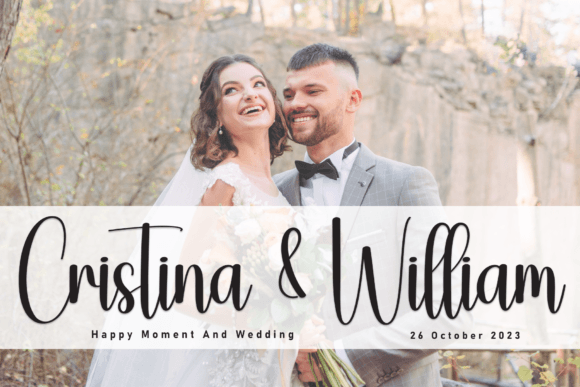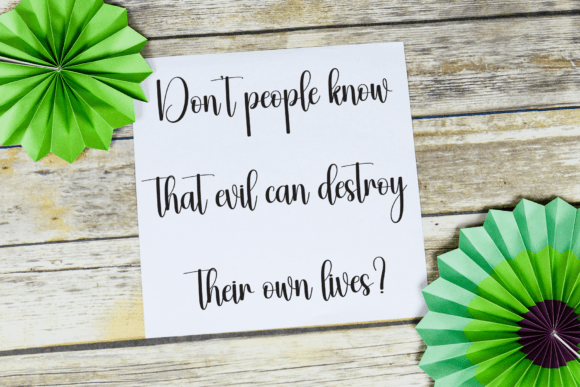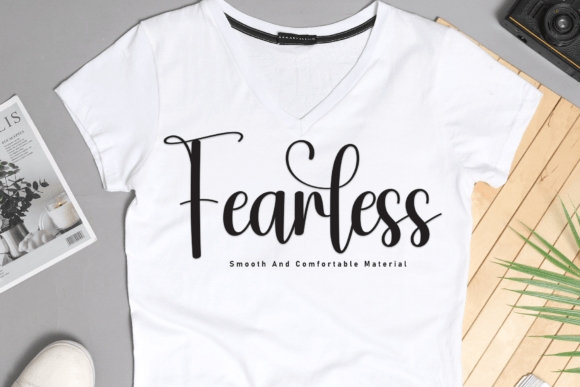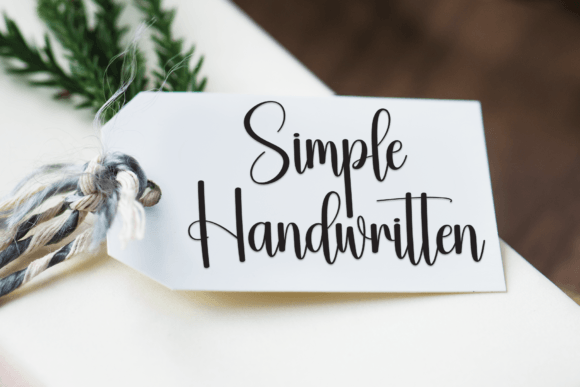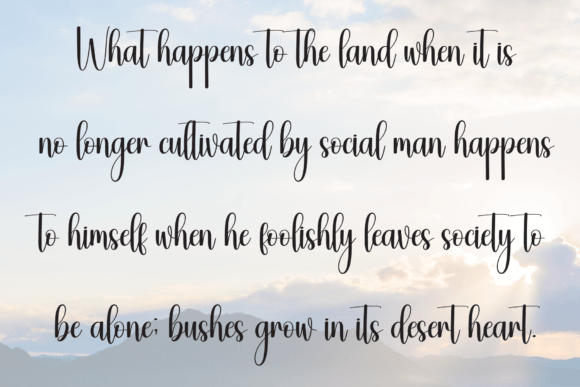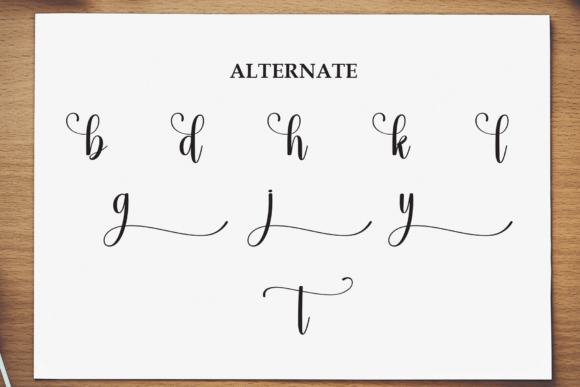
The Art of Personal Touch: Unveiling the Book Signature Font
As a designer, there’s nothing quite like the thrill of bringing a new project to life. It’s that moment when you finally see your vision take shape, and you know you’ve created something truly special. For me, it’s the instant when I see a handwritten font come alive on the page, infusing a sense of personality and character into the design.
That’s where the Book Signature Font comes in – a timeless, lovely handwritten font that adds a personal touch to any project. Its unique and beautiful strokes make it the perfect choice for logos, branding, and quotes that need to stand out. As a designer, you know how valuable it is to have a font that not only looks great but also conveys the message you want to convey.
Book Signature Font Key Features
- Unique Characteristics: Distinctive cursive script with elegant flourishes and connecting strokes, ideal for creating a personal touch in book titles, author signatures, and other written works.
Book Signature Font Review
Overall, I found the Book Signature Font to be a lovely addition to any design project. ✨ It has a classic and elegant feel that works particularly well for wedding invitations, book covers, and other formal documents.
Here are some of its standout features:
- Beautifully crafted letterforms with subtle flourishes
- Excellent for creating a sense of tradition and sophistication
- Works well in both digital and print formats
- Highly legible and easy to read, even in smaller font sizes
However, there are a few limitations to be aware of:
- May not be suitable for modern or minimalist designs
- Limited character set, which can make it difficult to create complex text
- Some letters may appear slightly inconsistent in terms of width and spacing
Overall, I’d say the Book Signature Font is a great choice for designers who want to add a touch of elegance to their projects. With a little creativity and experimentation, you can overcome its limitations and create truly beautiful designs.
Use the font’s nuances to add depth and character to your designs.
The Book Signature Font is a great choice for presentations and documents that require a touch of elegance and sophistication.
Use the Book Signature Font to add a personal touch to your designs. Experiment with different font sizes and styles to create a unique look.
Combine the Book Signature Font with other elegant fonts to create a sophisticated design.
The Book Signature Font is perfect for:
- Book covers and book design
Use the Book Signature Font to add a touch of elegance and sophistication to your designs.
Alternative Fonts for Book Signature Font
Playfair Display is a luxurious, high-end serif font that is perfect for creating a sense of sophistication and elegance. It features intricate details and flourishes, making it ideal for invitations, wedding stationery, and high-end branding. When to use: luxury brands, high-end events, and premium products. Compared to Book Signature Font, Playfair Display has a more ornate and elaborate feel, making it a better choice for more formal and exclusive applications.
Didot is a classic, elegant serif font that exudes refinement and sophistication. It features a sleek and modern feel, making it suitable for fashion, luxury, and lifestyle brands. When to use: fashion brands, luxury goods, and high-end publications. Compared to Book Signature Font, Didot has a more modern and streamlined feel, making it a better choice for brands that want to convey a sense of elegance and sophistication.